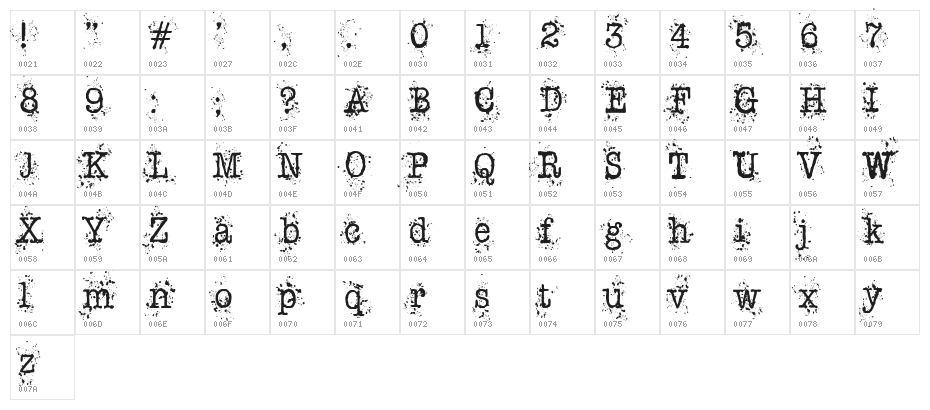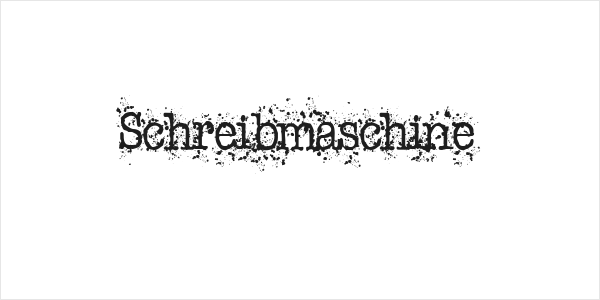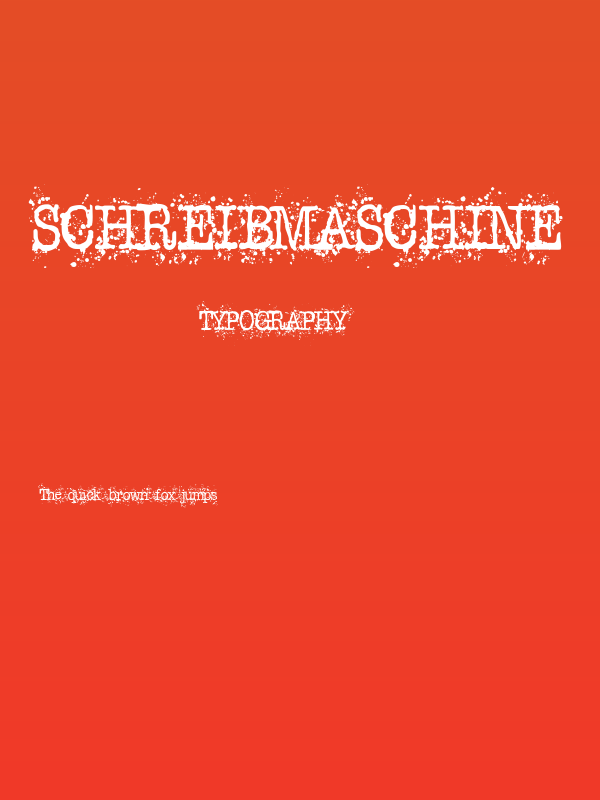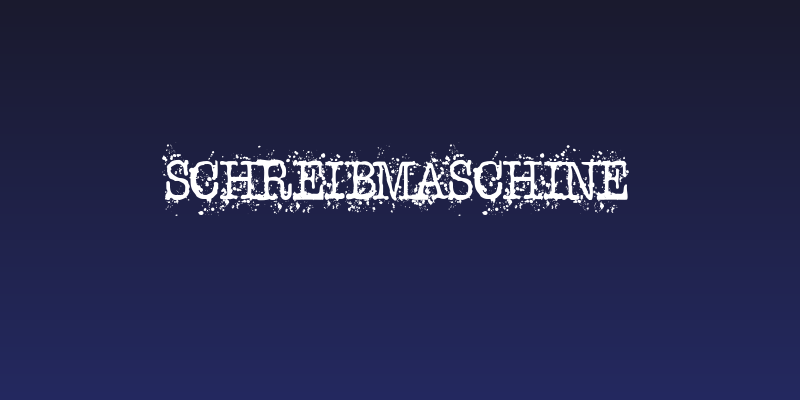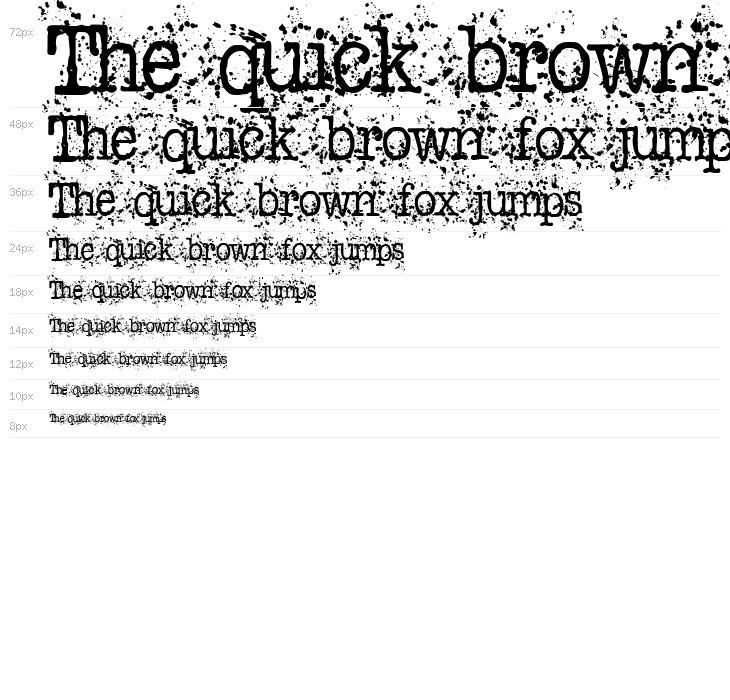
Schreibmaschine Font
Schreibmaschine Description
This font features a distressed, grunge style that mimics the appearance of old typewriter text with ink splatters and irregularities. The characters are serifed, with a classic typewriter form, but the added texture gives it a unique, vintage feel. The uppercase and lowercase letters maintain a consistent style, while numbers and special characters are equally distressed, enhancing the overall aesthetic. This font is ideal for projects that require a retro or industrial look, adding character and depth to any design.
| Proposed Projects | Ideal for vintage-themed posters, album covers, book titles, and creative branding projects. |